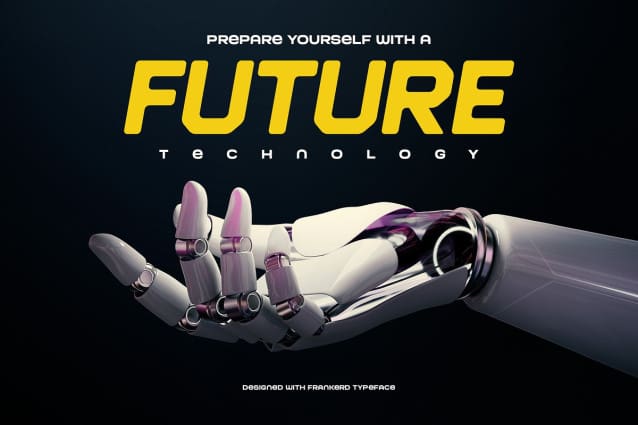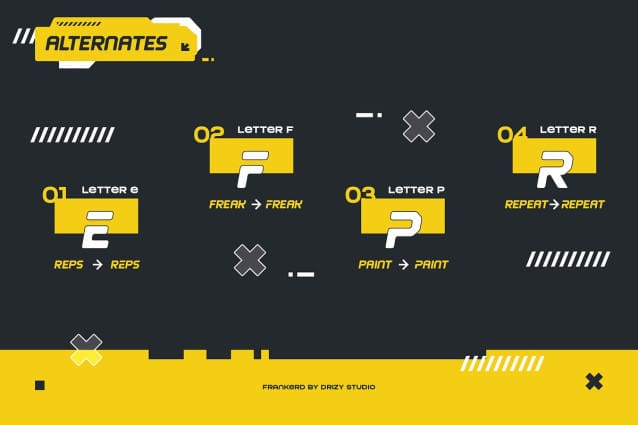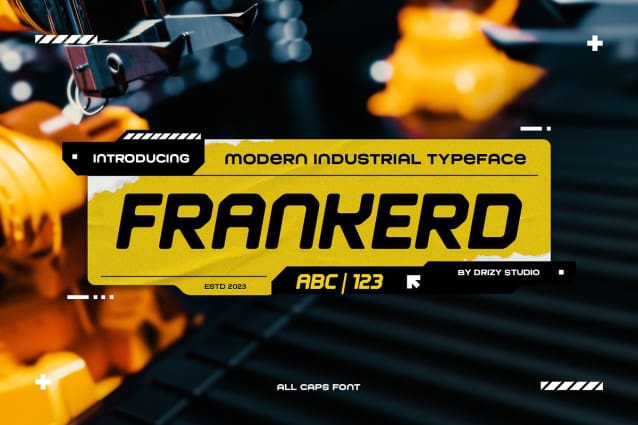
Frankerd Font
Frankerd Font is a striking and contemporary industrial font that seamlessly blends modern aesthetics with a robust, mechanical edge. This typeface is designed to capture the essence of industrial design, making it an ideal choice for a wide range of applications, from branding and advertising to product packaging and signage.